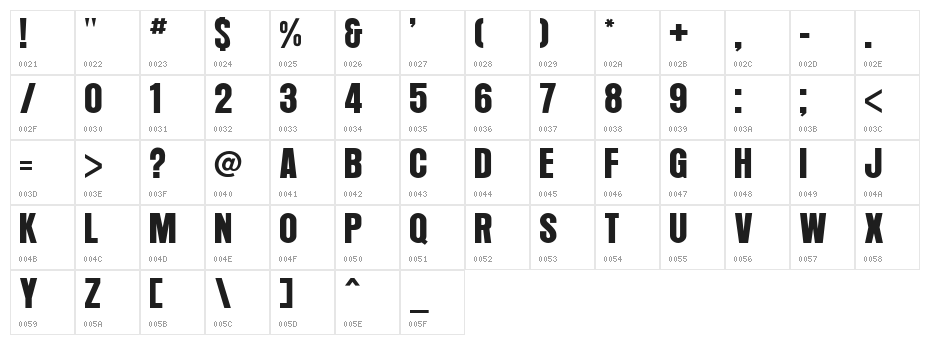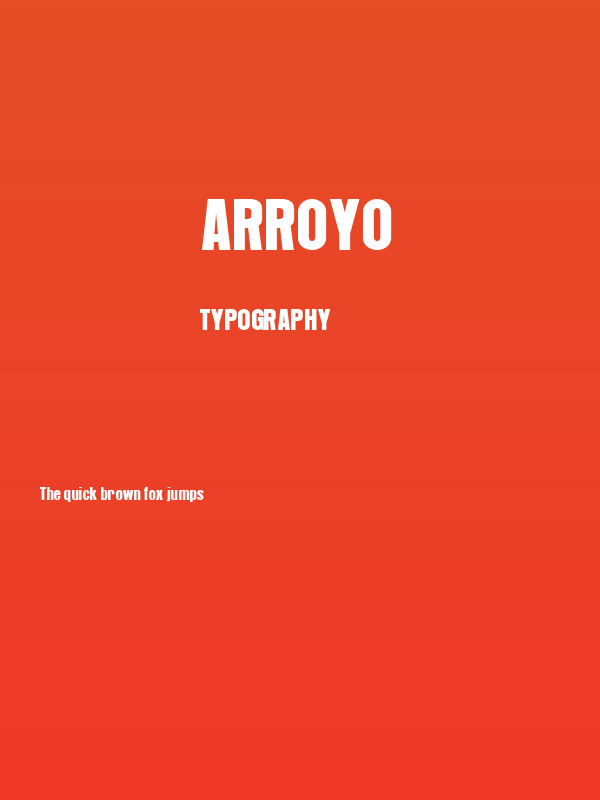
Arroyo Font
Arroyo Description
This font is a bold and impactful typeface characterized by its thick, uniform strokes and strong presence. The uppercase and lowercase letters maintain a consistent weight, providing a sense of stability and confidence. The numbers and special characters are equally robust, ensuring clarity and readability. The overall design is straightforward yet powerful, making it suitable for attention-grabbing headlines and statements. Its geometric shapes and clean lines contribute to a modern and professional appearance, while the lack of serifs gives it a contemporary edge.
| Proposed Projects | Ideal for headlines, posters, advertising, branding, and any project requiring a bold statement. |